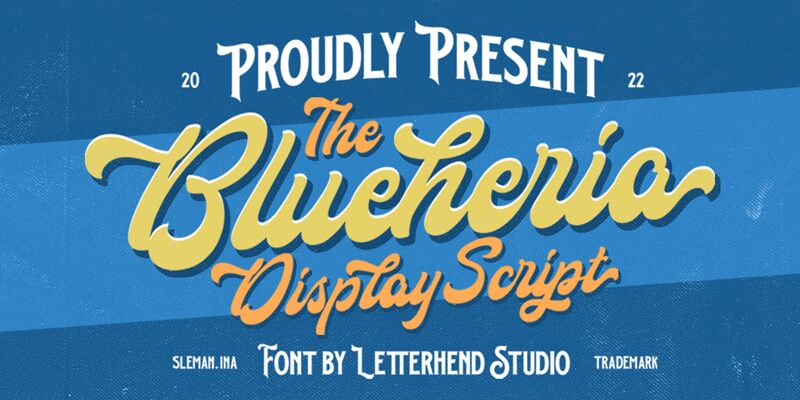
Blueheria, designed by Letterhend Studio, exudes a fusion of timeless charm and modern flair. This font boasts a bold weight that makes a statement while maintaining smooth brush strokes that evoke a handcrafted, retro vibe. The aesthetic appeal lies in its ability to capture the spontaneity of brushwork with an underlying structure that ensures legibility and impact.
With its distinctive style, Blueheria is remarkably versatile for various creative endeavors. Whether it's branding, poster design, or editorial work, this font adds personality and visual interest. Its smooth yet pronounced characters are ideal for projects aiming to stand out with a blend of sophistication and vintage allure.
Blueheria's unique characteristics ensure it is not just another font—it's a stylistic choice that can elevate your design narrative with its artistic presence and nostalgic touch.